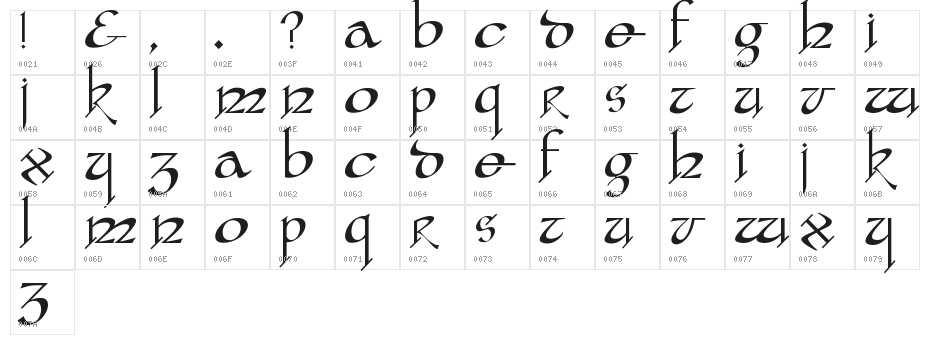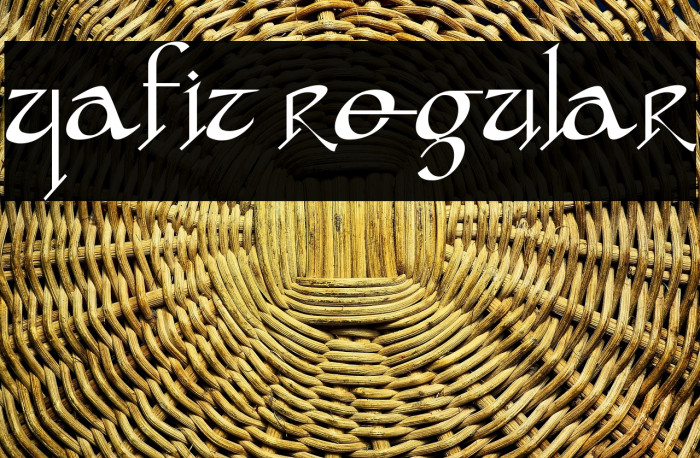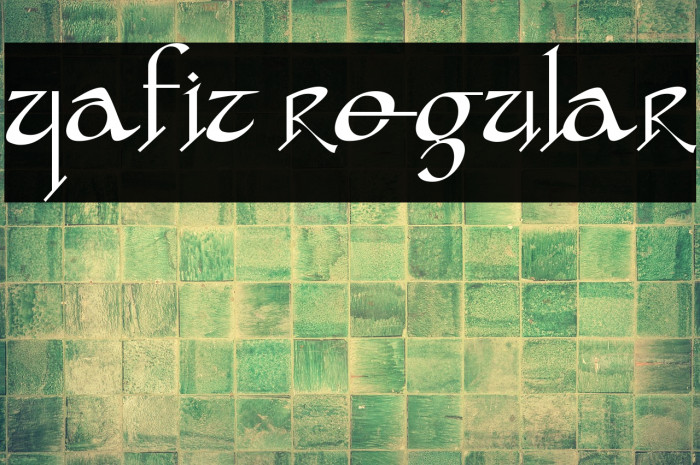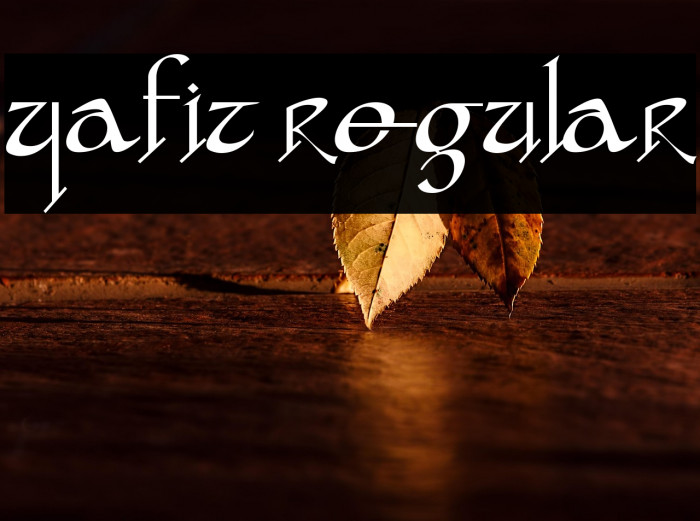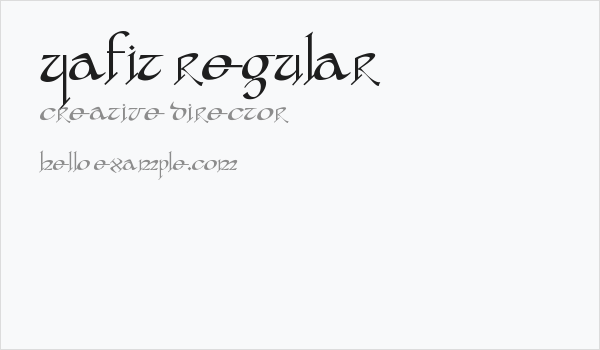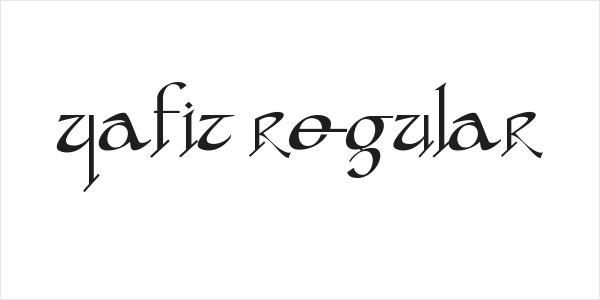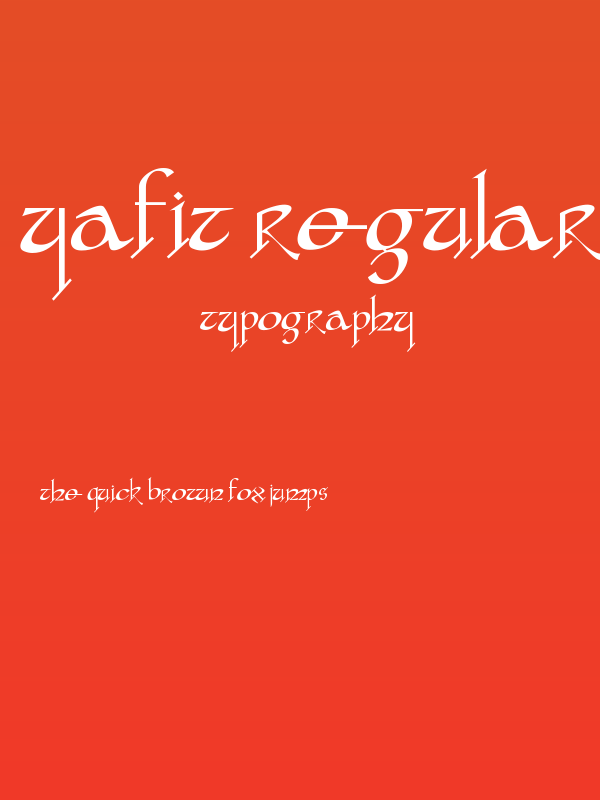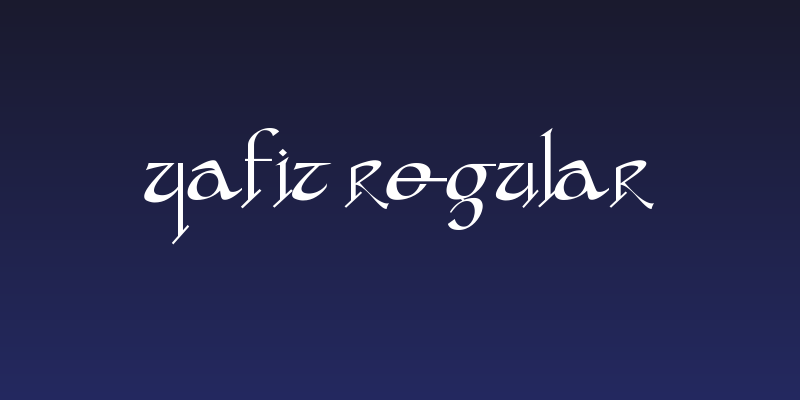
yafit Regular Font
yafit Regular Description
This font features a distinctive and artistic design that combines elements of calligraphy and gothic styles. The characters exhibit sharp, angular lines with pronounced serifs, giving it a dramatic and bold appearance. The uppercase and lowercase letters maintain a consistent style, with unique flourishes that add to its decorative nature. The numerals and special characters follow the same aesthetic, ensuring a cohesive look across all glyphs. This font is ideal for projects that require a touch of elegance and historical flair, making it suitable for invitations, posters, and branding that seeks to convey sophistication and creativity.
| Proposed Projects | Ideal for invitations, posters, branding, and any project requiring an elegant and historical touch. |